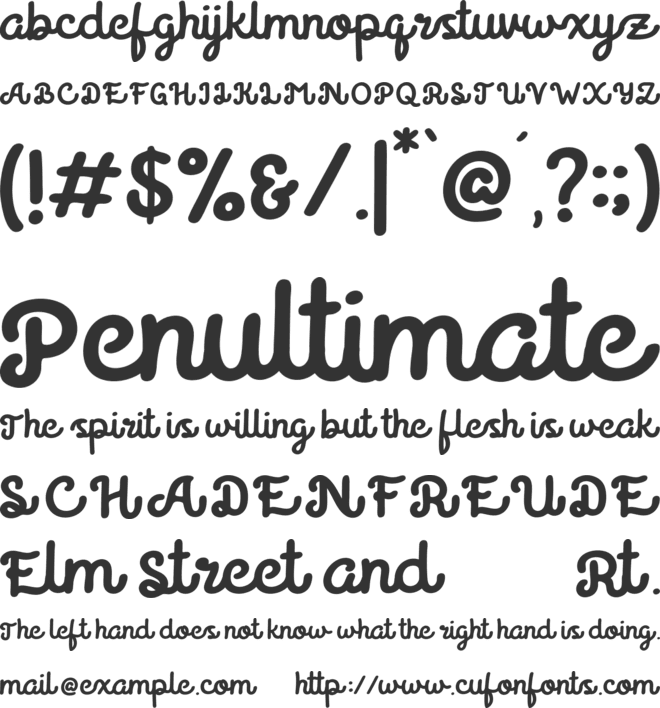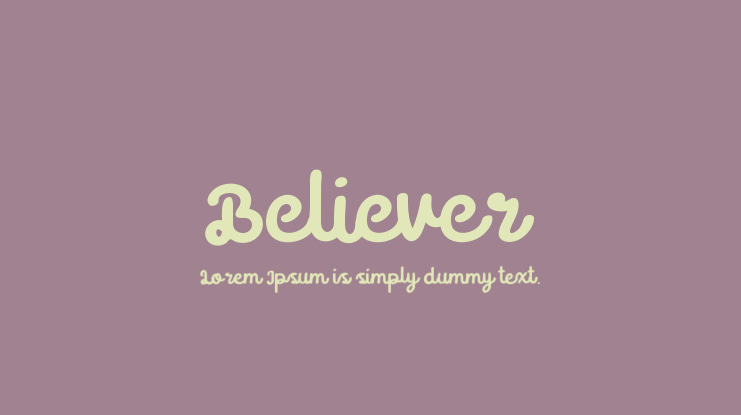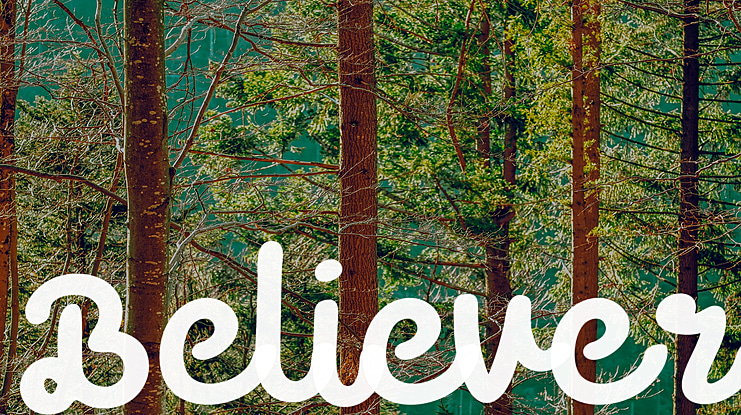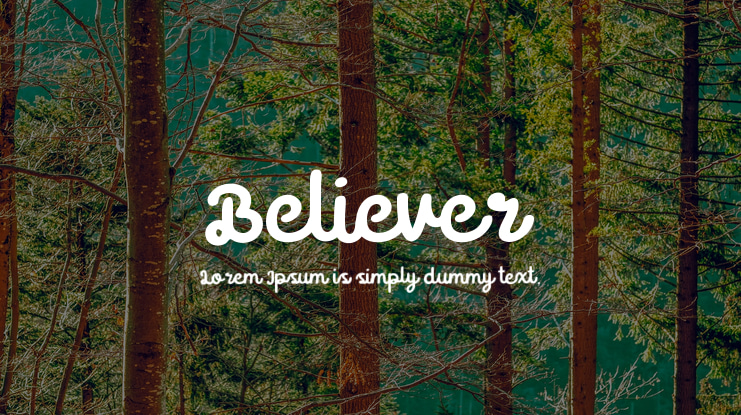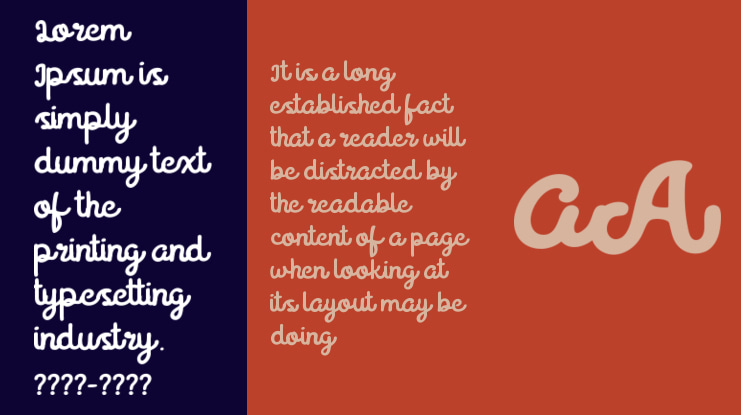
Believer Font
Believer is a letter with original handwriting style, nice applied in various products. Complete with multilingual characters, ligature, alternate and contextual alternate. It is suitable for quote, clothing design, vintage logo, label, poster, packaging design and other designs.
Features (PUA Encoded)
- UPPERCASE.
- LOWERCASE.
- MULTILINGUAL. (for full version)
- PUNCTUATION & SYMBOL.
- STYLISTIC SET. (for full version)
- LIGATURE. (for full version)
- CONTEXTUAL ALTERNATES.